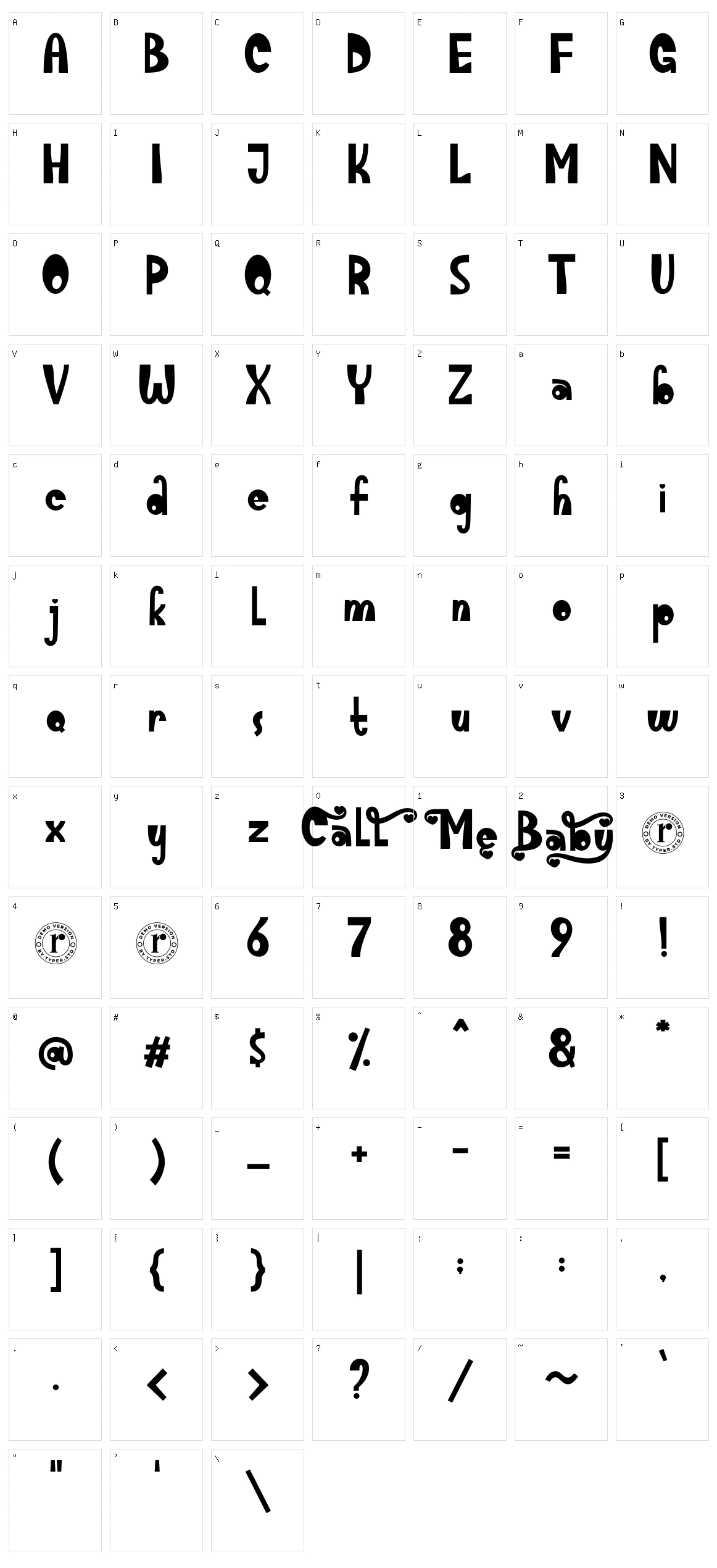
The free font Call Me Baby is carefully designed by Typer Std, showcasing a thoughtful balance of creativity and usability and falls under the Groovy font style. When you download the ZIP file, it contains only 313.05 KB of font files, making it lightweight and quick to download. Please review the license details below to understand permitted usage and distribution rights. If license information is not available, we recommend using this font for personal projects only or contacting the author directly for commercial usage permissions.